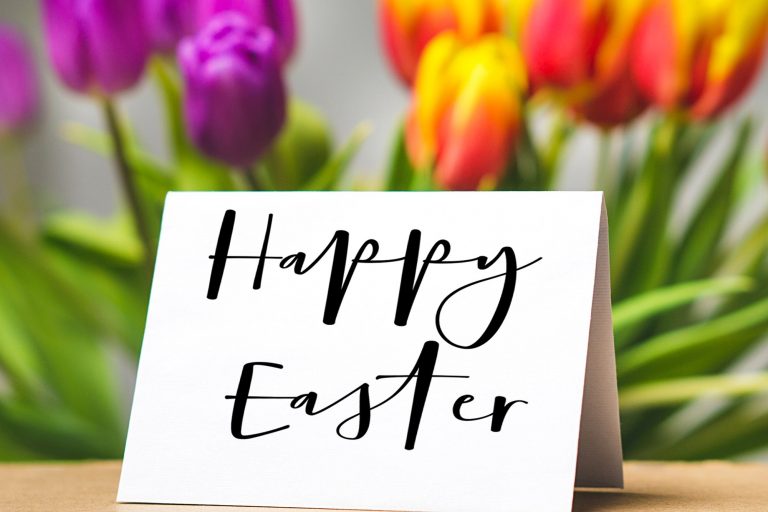
Bellissima Script Font
Introducing Bellissima Font. This handwritten font is ideal for branding and decorate your any project. Combine it with other fonts and add style in your project. Bellissima – this font is created with a semibold handwriting style. It can be used in all advertising materials, perfect for: branding, Wedding,Greeting business card, packaging, flyer, logo, photos, books, packaging, posters, Invitation, etc